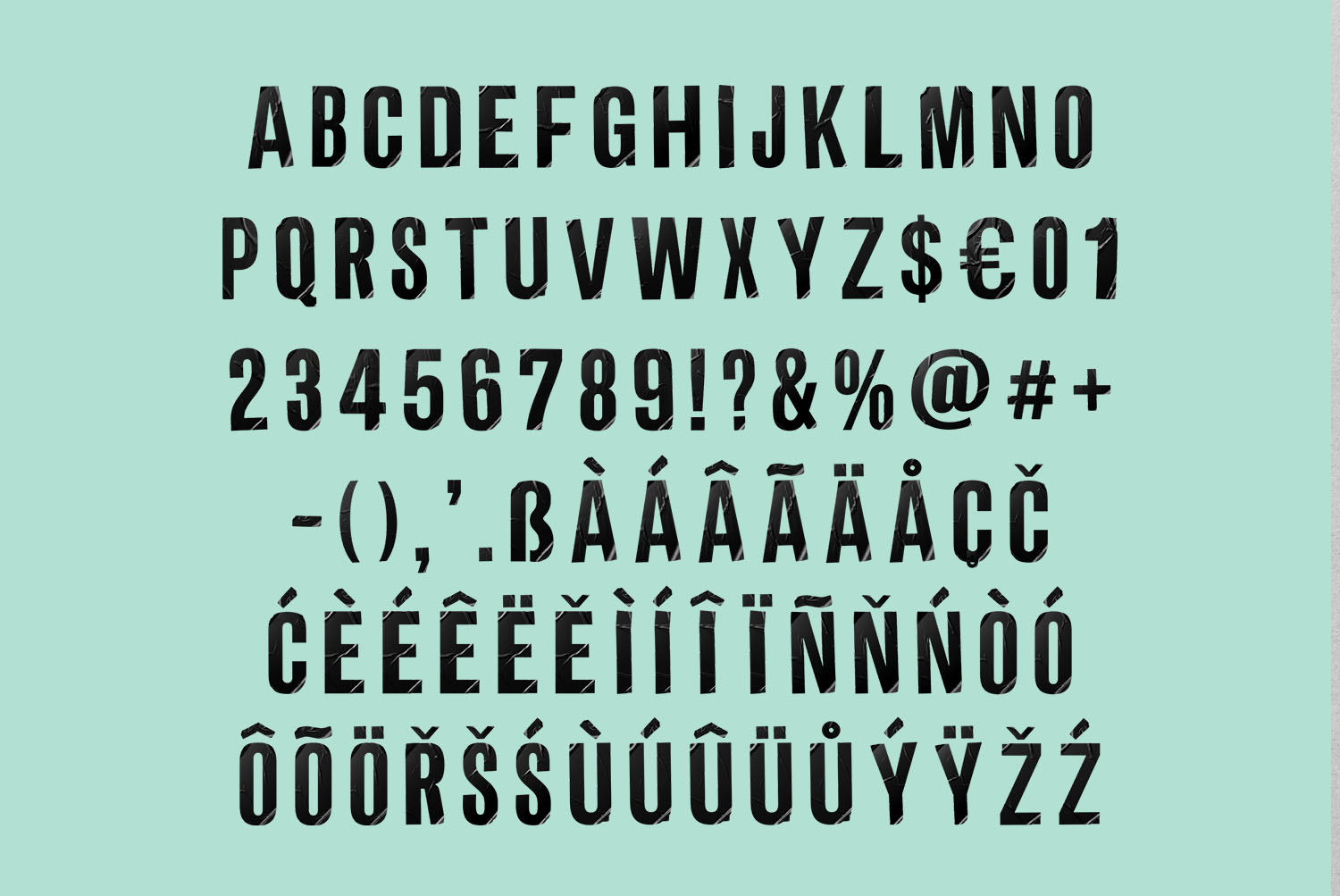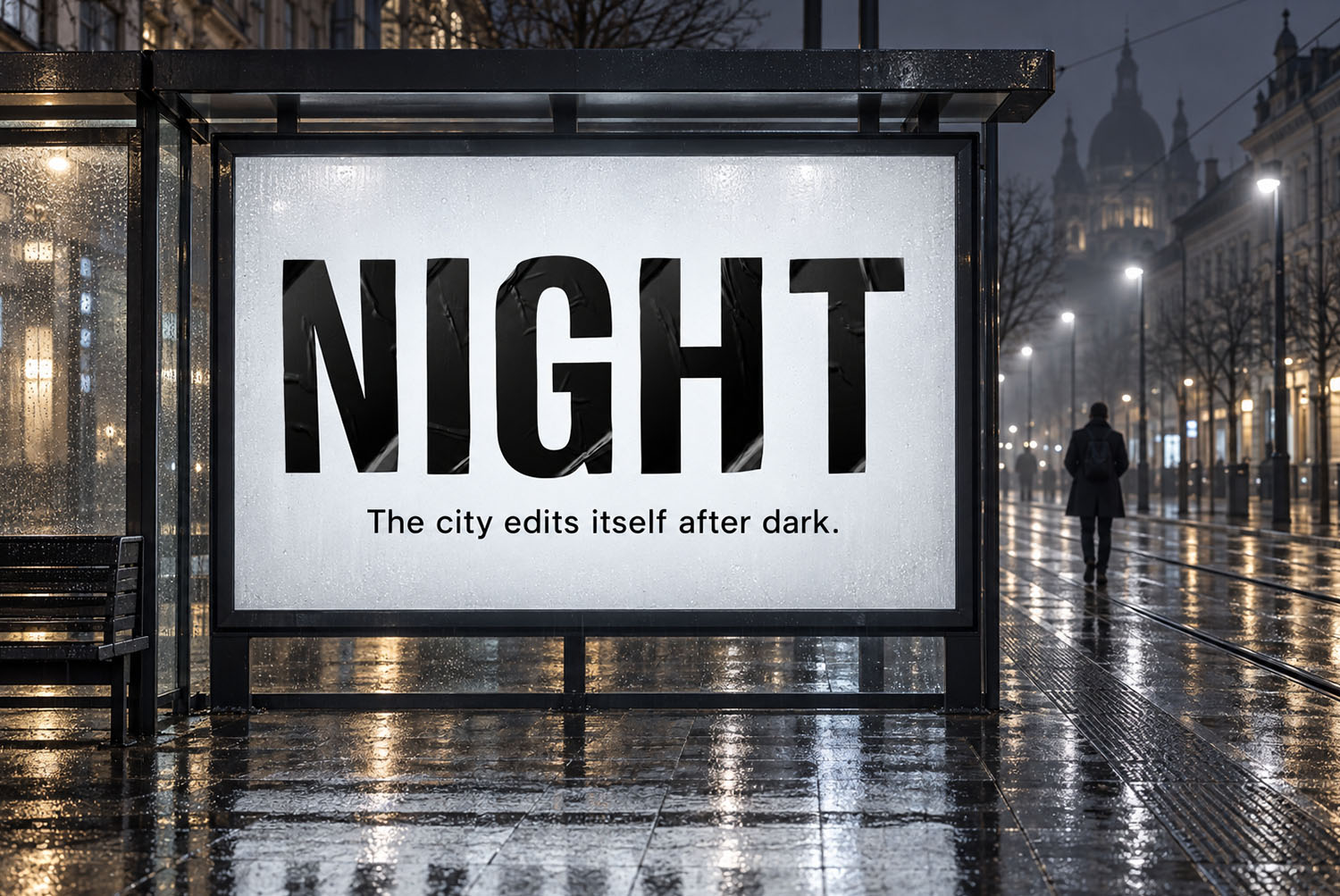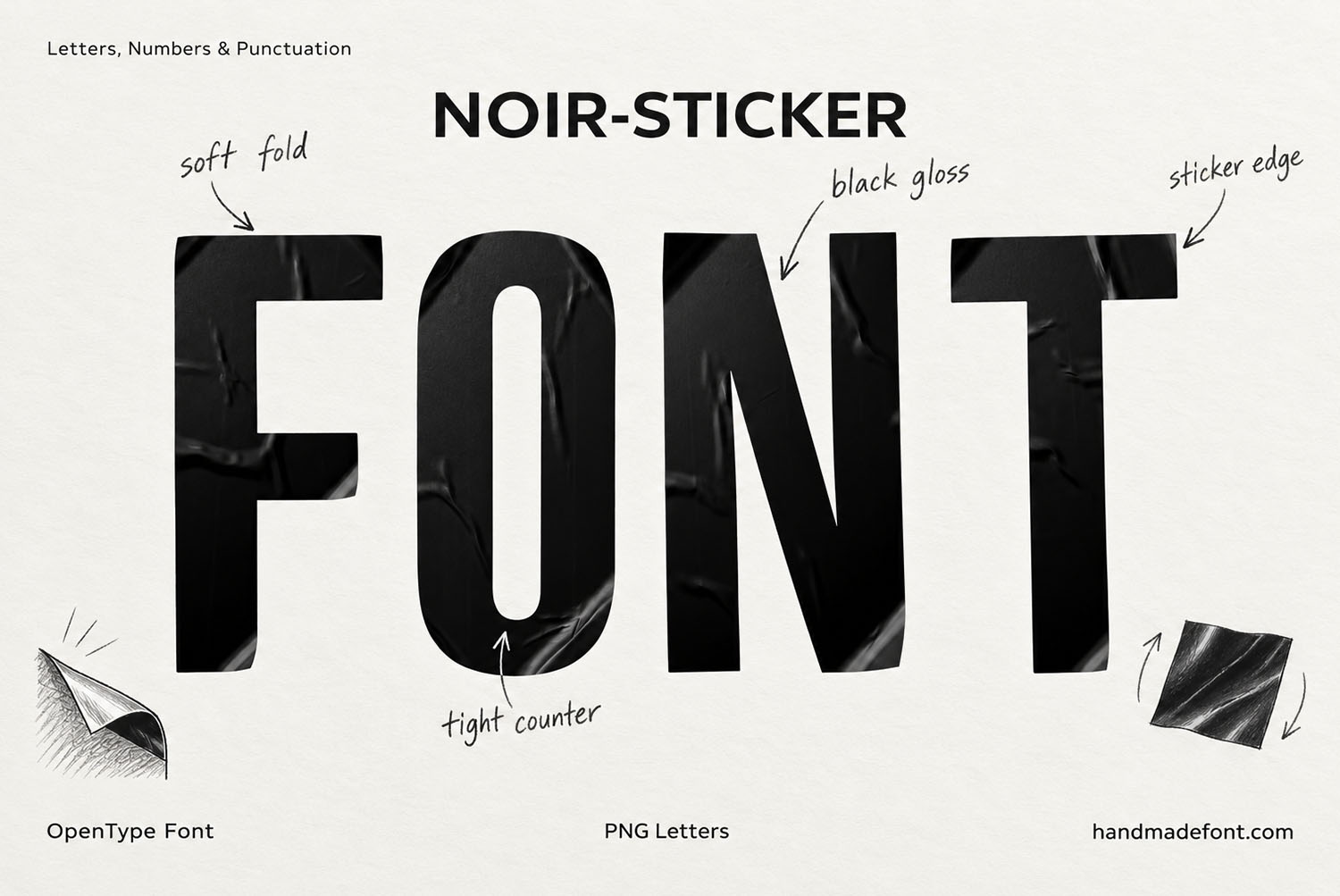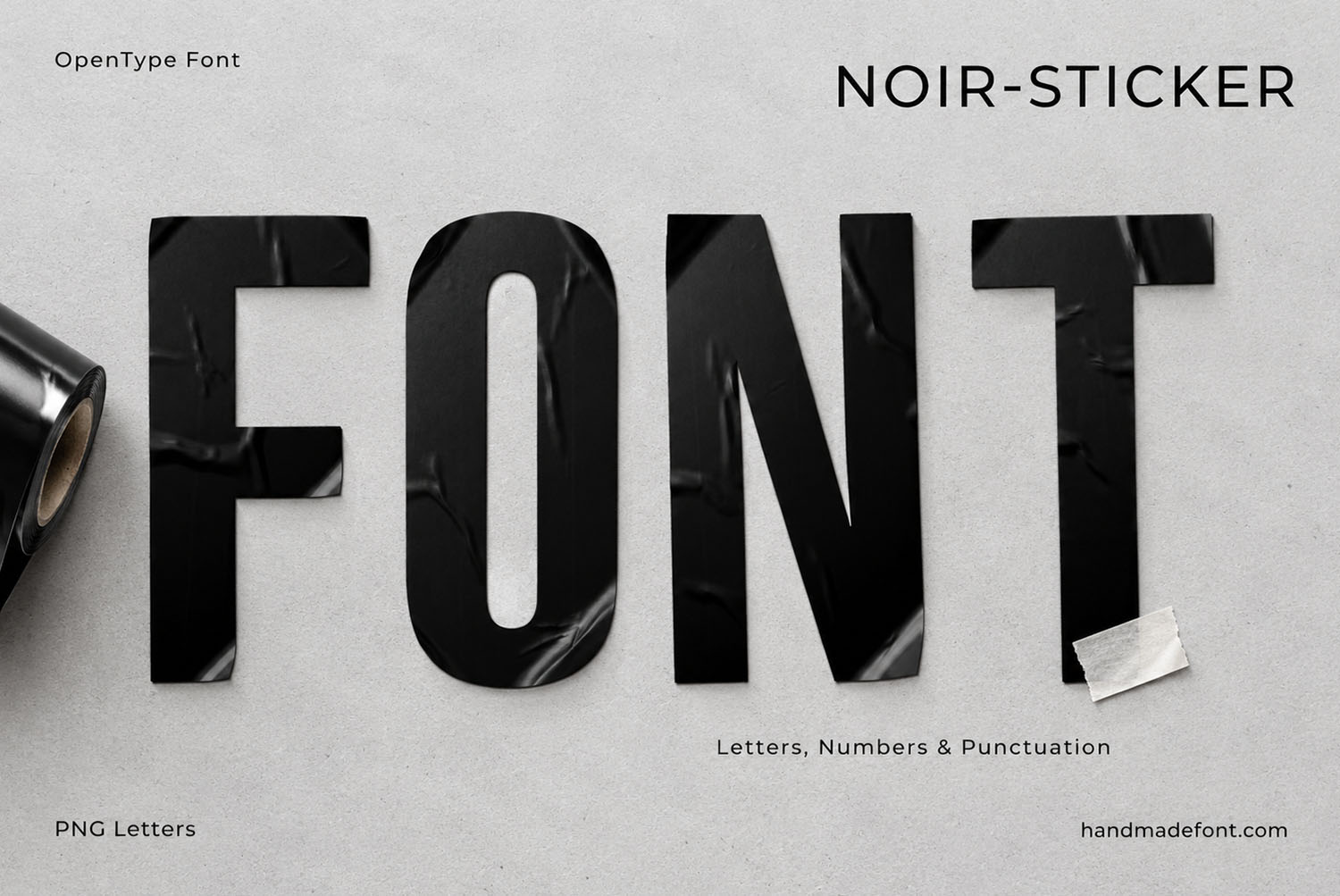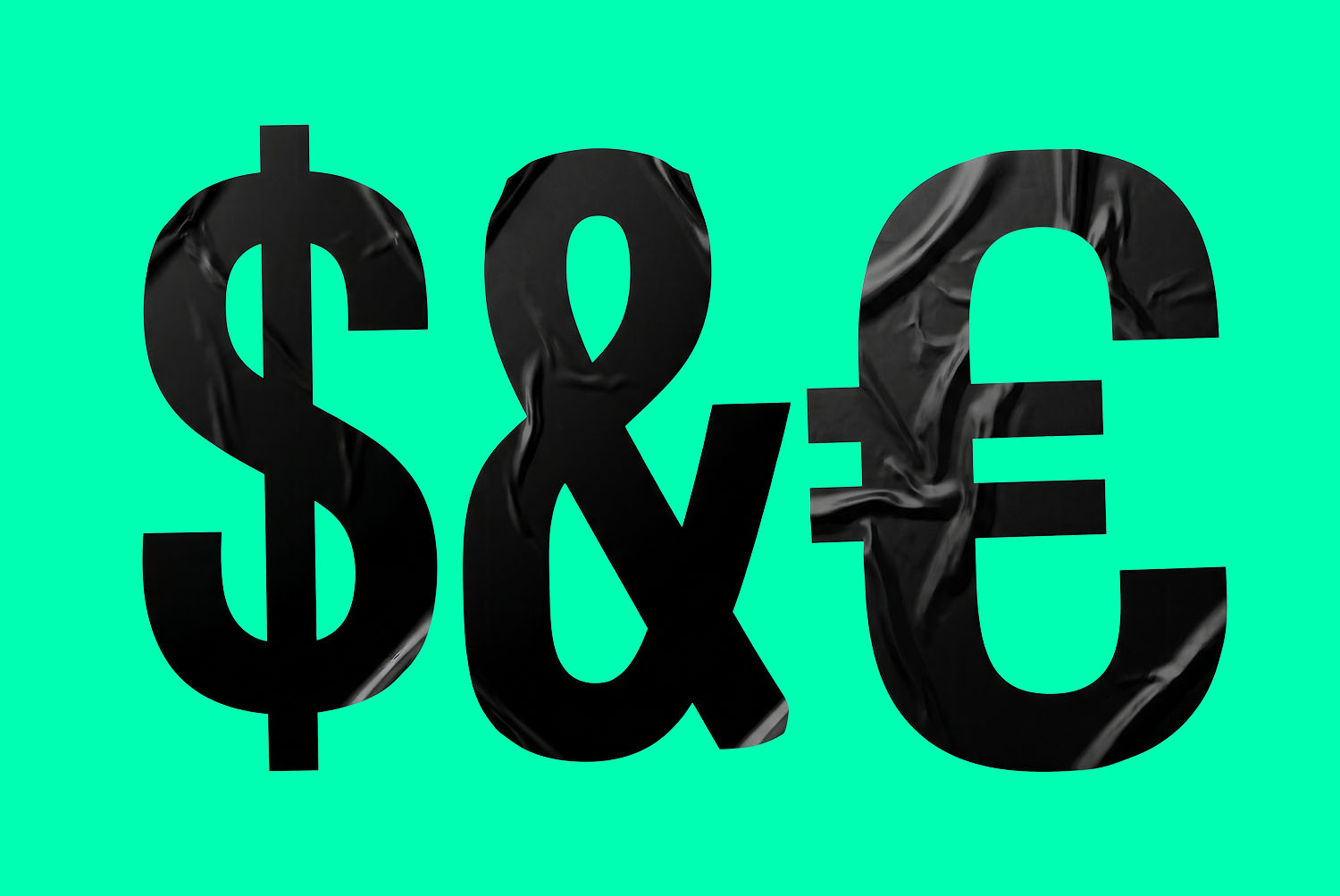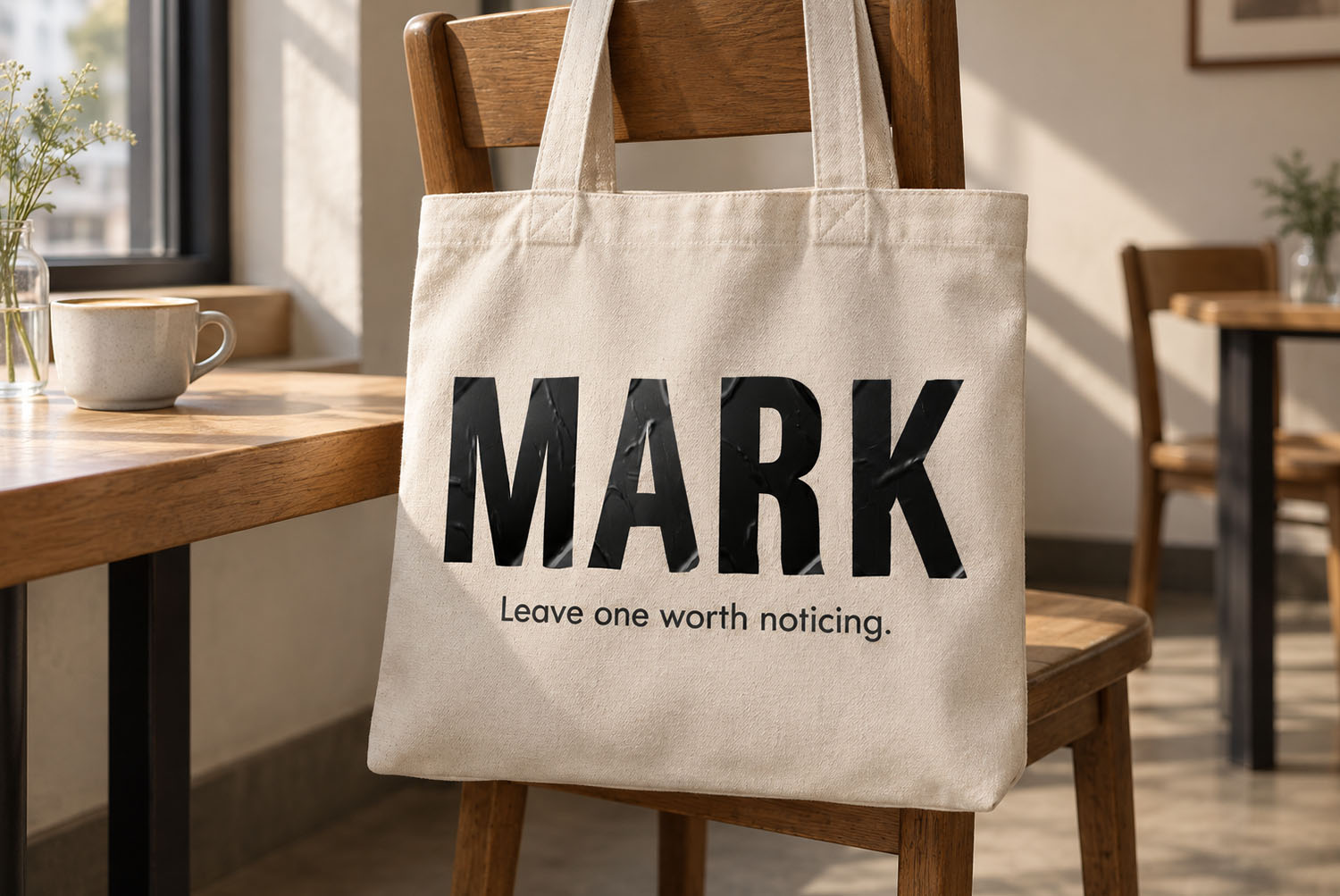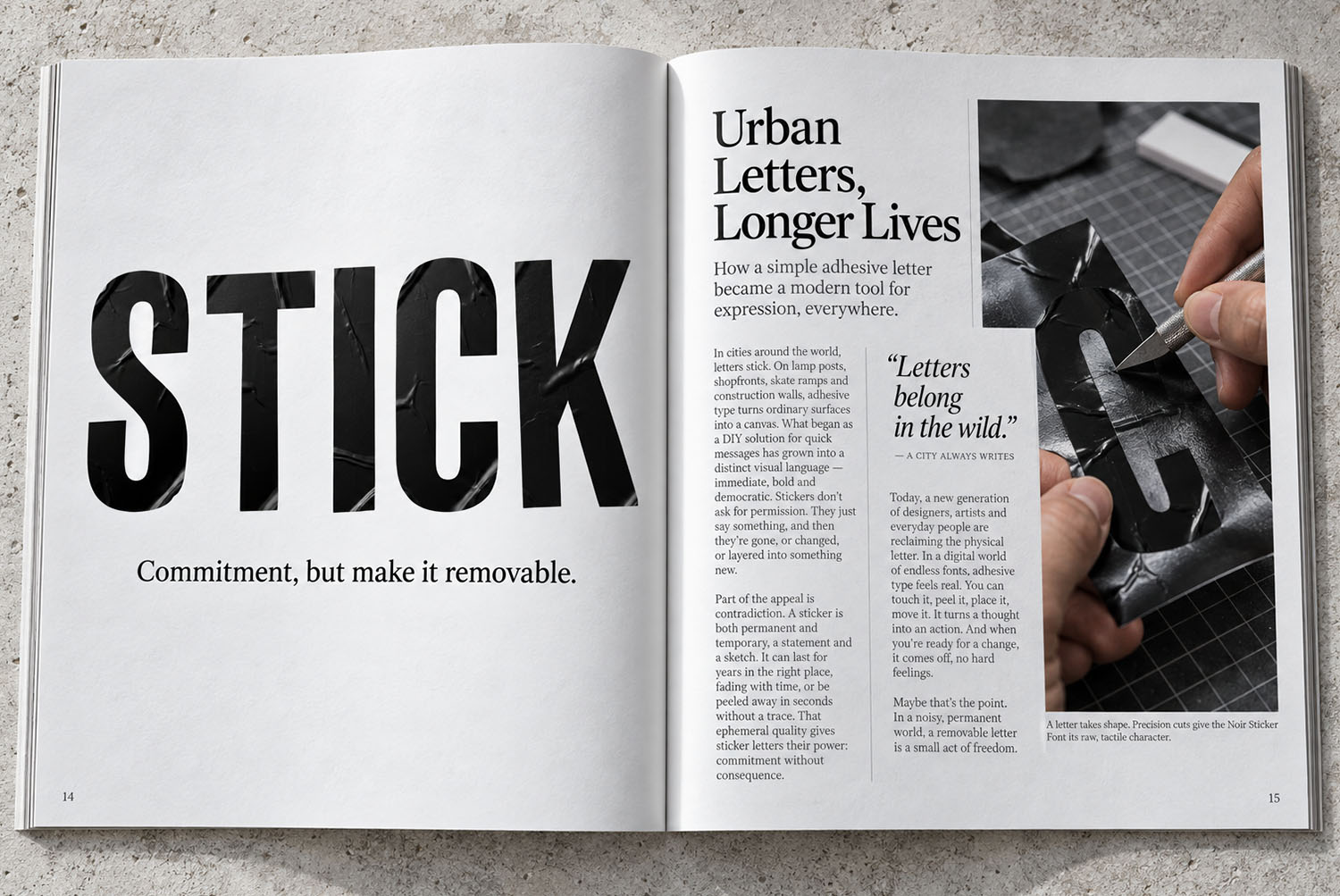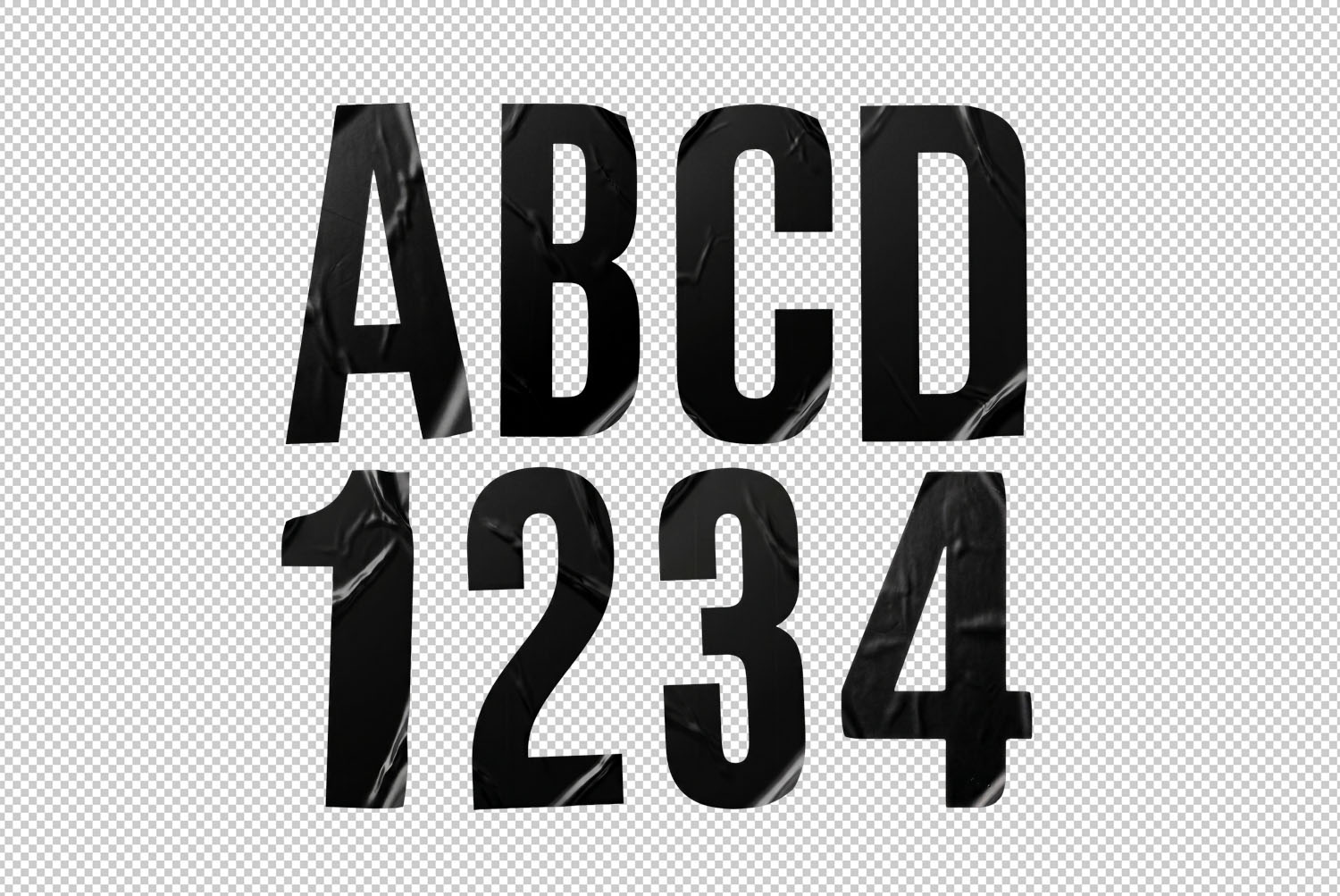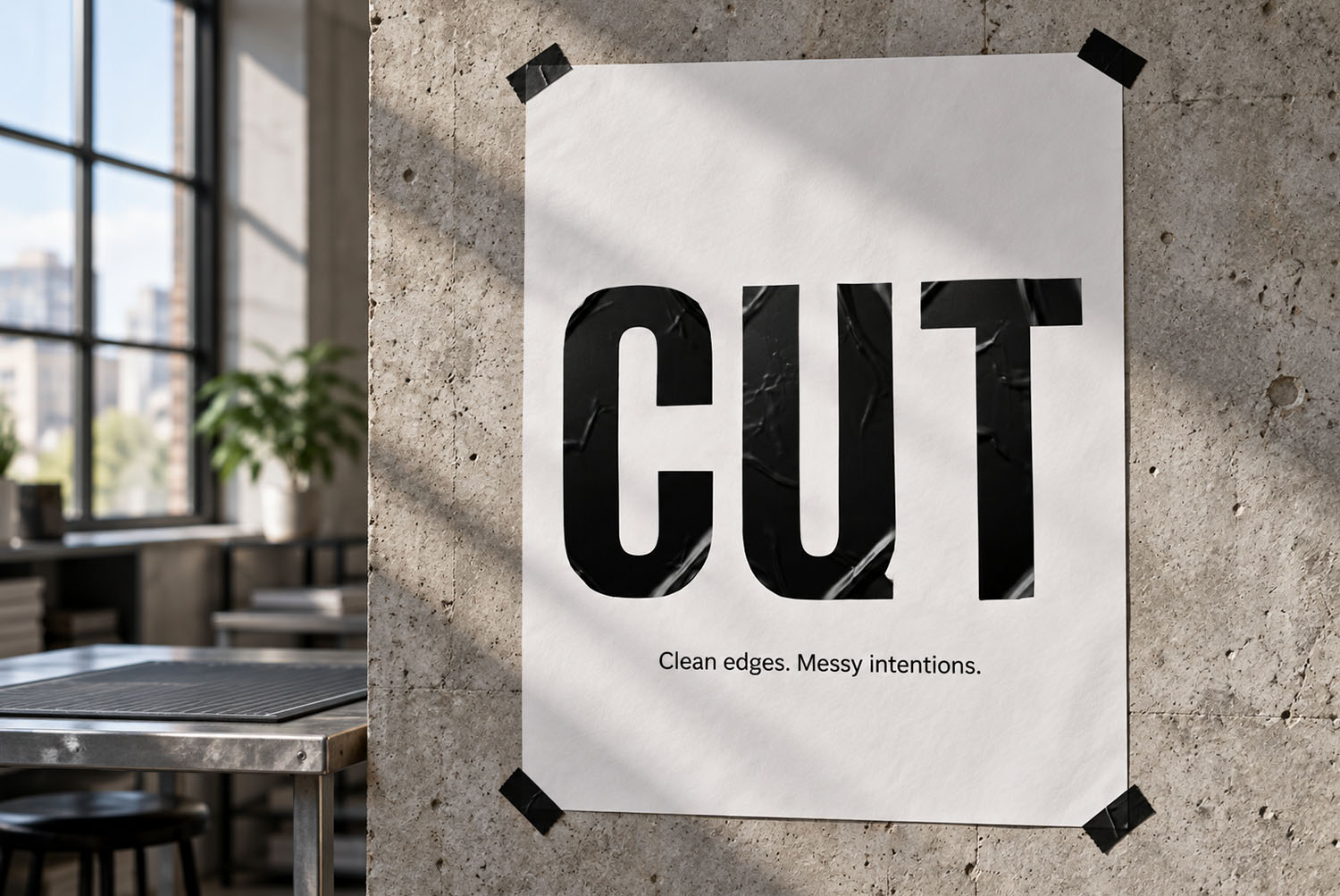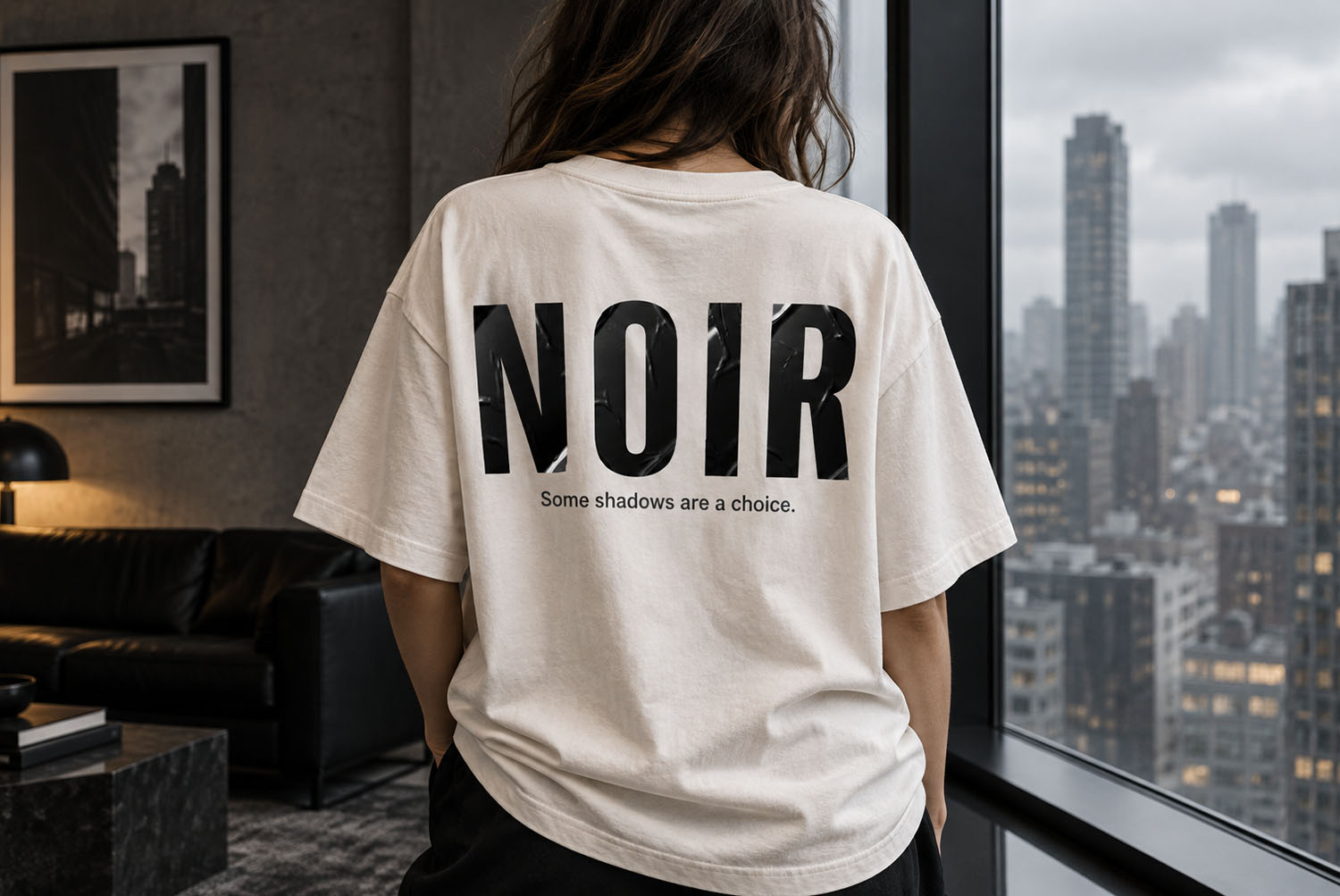
Noir Sticker Font. Black Vinyl Letters, Edges Lifting
Noir Sticker Font cuts condensed capitals from glossy black vinyl and presses them down, so soft creases cross every stroke and a few corners start to lift. Thin highlights run along the wrinkles, which keeps black letters readable as real material. It installs as an OTF you can type with, plus separate high-resolution PNG letters on transparent backgrounds.
Noir Sticker Font in Plain Black Film
Take a sheet of black vinyl, cut tall narrow capitals out of it, then press them down by hand. That, more or less, is the Noir Sticker Font. Because the film never lies perfectly flat, soft creases run across every stroke. Meanwhile, a few corners have already started to lift. The letterforms themselves stay strict, since a condensed grotesque skeleton keeps every word upright and compact. Only the surface misbehaves, so the type feels handled rather than printed.
Gloss That Catches the Light
Black is hard to show off, so the shine does the work here. Thin highlights slide along each wrinkle, while the flat areas stay deep and inky. As a result, a letter reads as real material even at a small size. When the background is light, the shadow under each lifted edge adds a touch of depth. Every glyph of the Noir Sticker Font also carries its own crease pattern. Therefore, a word never looks copied and pasted, although the shapes match perfectly.
Where Black Stickers Belong
Street posters, gig flyers and shop windows suit it best, because they already live among tape and vinyl. In the mockups, CUT hangs on a wall, held up by black tape, while NOIR crosses a white tee. Fashion and editorial layouts like the Noir Sticker Font too, since black on white never dates. Of course, a single word such as YES or PEEL makes the strongest statement. Besides, the narrow width lets a long headline fit where a wide display face would spill over.